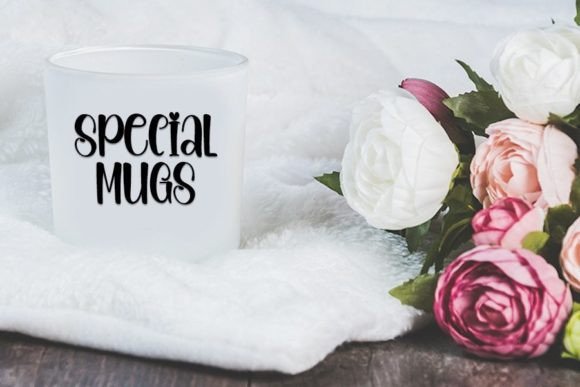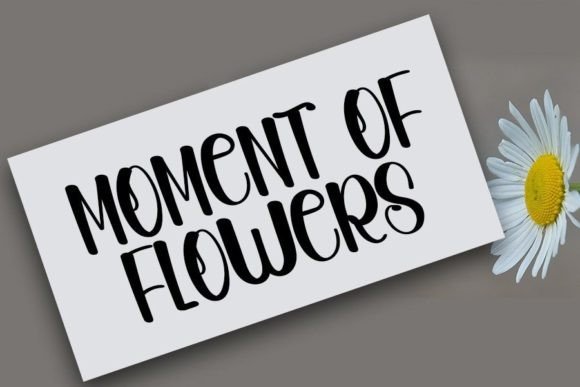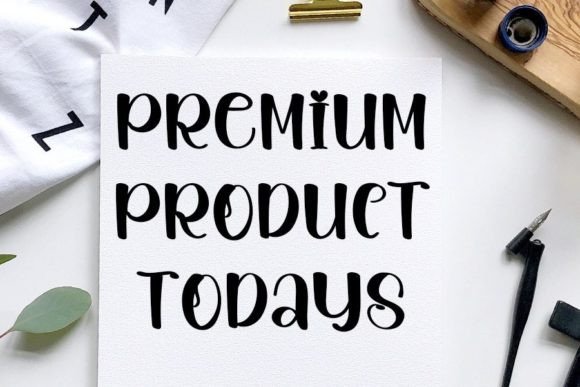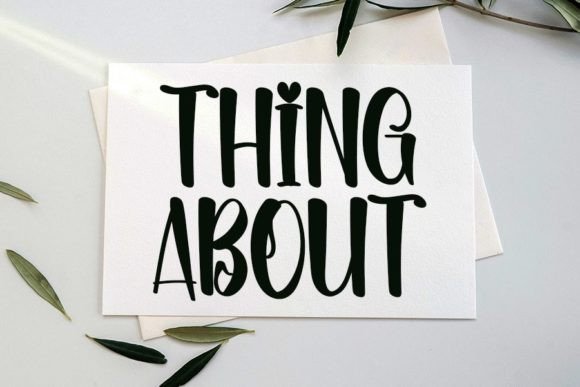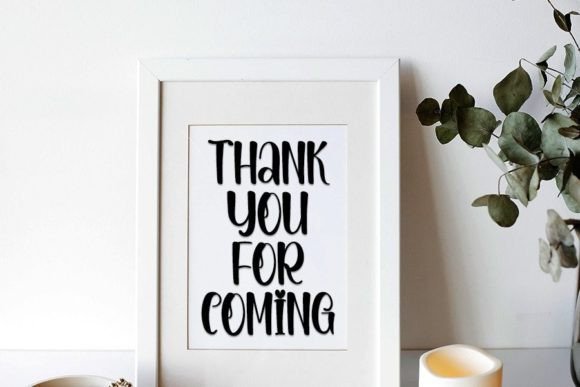
Introducing Beside Font: Elevate Your Designs with Timeless Elegance
In the world of typography, a font can make or break a design. For designers and crafters seeking to add a touch of sophistication and style to their projects, Beside Font is an exceptional choice. This stylish handwritten font boasts a contemporary atmosphere and impeccable form, drawing inspiration from timeless classic calligraphy. With its balanced and varied design, Beside Font is poised to enhance the beauty of your projects and leave a lasting impression.
The Inspiration Behind Beside Font
Beside Font is rooted in the elegance of traditional calligraphy, yet it has been carefully crafted to meet the demands of modern design. The creators of Beside Font sought to capture the essence of classic calligraphy and infuse it with a fresh, contemporary vibe. The result is a font that feels both nostalgic and current, making it an incredibly versatile tool for designers.
Key Features of Beside Font
• Handwritten with a Personal Touch: Beside Font is a handwritten font that exudes warmth and personality. Its strokes are fluid and natural, giving any text a personal and approachable feel.
• Contemporary Atmosphere: While rooted in classic calligraphy, Beside Font has been designed with a keen eye for modern aesthetics. It possesses a clean and crisp quality that makes it suitable for a wide range of applications, from digital media to print.
• Impeccable Form: The design of Beside Font is meticulously crafted, with attention to detail that ensures legibility and beauty. Each letterform is balanced and harmonious, contributing to the overall elegance of the font.
• Balanced and Varied: Understanding the need for versatility, the creators of Beside Font have ensured that it offers a range of styles and weights. This variability allows designers to use Beside Font across different projects and contexts, always achieving the desired impact.
Applications of Beside Font
The versatility of Beside Font makes it suitable for a multitude of design projects. Here are a few examples of where Beside Font can make a significant impact:
• Branding and Logotypes: The unique and stylish nature of Beside Font makes it an excellent choice for branding and logotypes. It can help a brand stand out and convey a sense of elegance and sophistication.
• Wedding and Event Design: For designers working on wedding invitations, programs, or event branding, Beside Font offers a romantic and refined aesthetic that can elevate any project.
• Packaging Design: The contemporary feel of Beside Font, combined with its classic roots, makes it a great fit for packaging design. It can add a touch of luxury and personality to product packaging.
• Digital Media: In the realm of digital media, including websites, social media graphics, and email newsletters, Beside Font can add a personal and engaging touch, setting content apart in a crowded digital landscape.
Tips for Using Beside Font Effectively
To make the most of Beside Font, consider the following tips:
• Pair with Complementary Fonts: While Beside Font is beautiful on its own, pairing it with complementary fonts can enhance its features and create visual interest. Choose fonts that contrast with Beside Font’s style to create a dynamic design.
• Experiment with Colors and Textures: Don’t be afraid to experiment with different colors and textures. Beside Font’s versatility means it can work well with a variety of design elements.
• Pay Attention to Spacing: Ensure that your text has adequate spacing. The elegance of Beside Font can be emphasized or diminished by the spacing around and between letters and lines.
Beside Font is a remarkable addition to any designer’s toolkit. Its blend of classic calligraphy and modern style makes it a versatile and stylish choice for a wide range of projects. Whether you’re working on branding, packaging, digital media, or any other design endeavor, Beside Font offers the potential to elevate your work and make it truly memorable. With its impeccable form, balanced design, and contemporary atmosphere, Beside Font is poised to become a favorite among designers seeking to add a touch of elegance and sophistication to their creations.